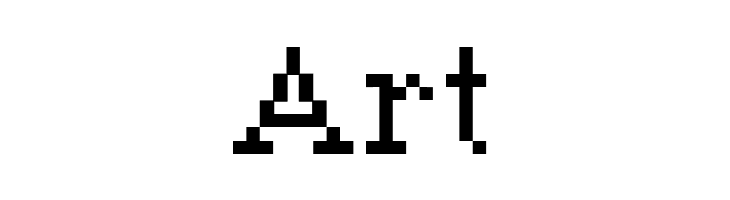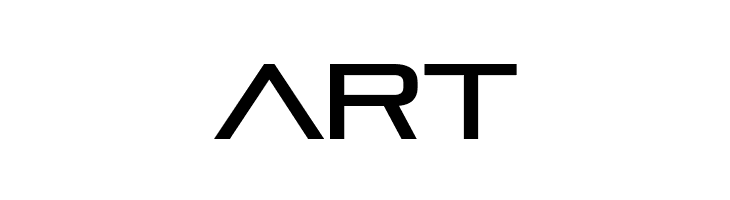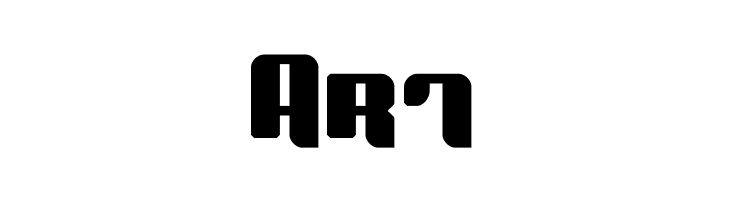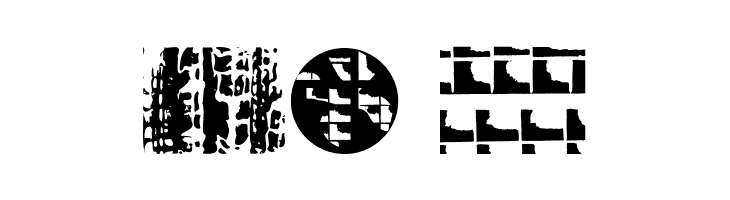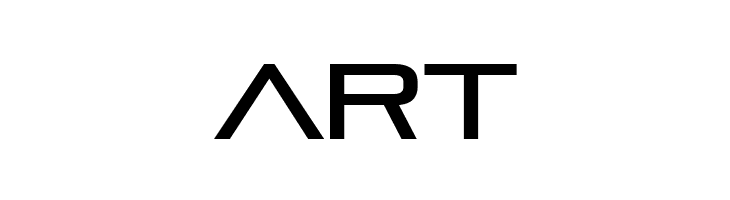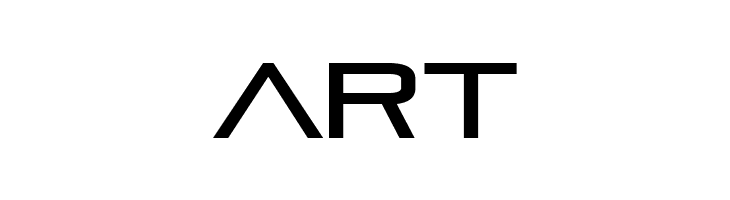
A futuristic, geometric font with clean lines and angular shapes.
A futuristic, geometric font with clean lines and consistent stroke width.
A bold, decorative font inspired by the Jugendstil movement, featuring intricate and artistic letterforms.
A pixelated, retro-style font with a blocky, digital appearance.
An abstract, glitch-inspired font with fragmented, pixelated characters.
A playful, hand-drawn font with dynamic and irregular strokes.
A playful, handwritten-style font with dynamic strokes and irregular shapes.
A bold, geometric font with a futuristic and cohesive design.